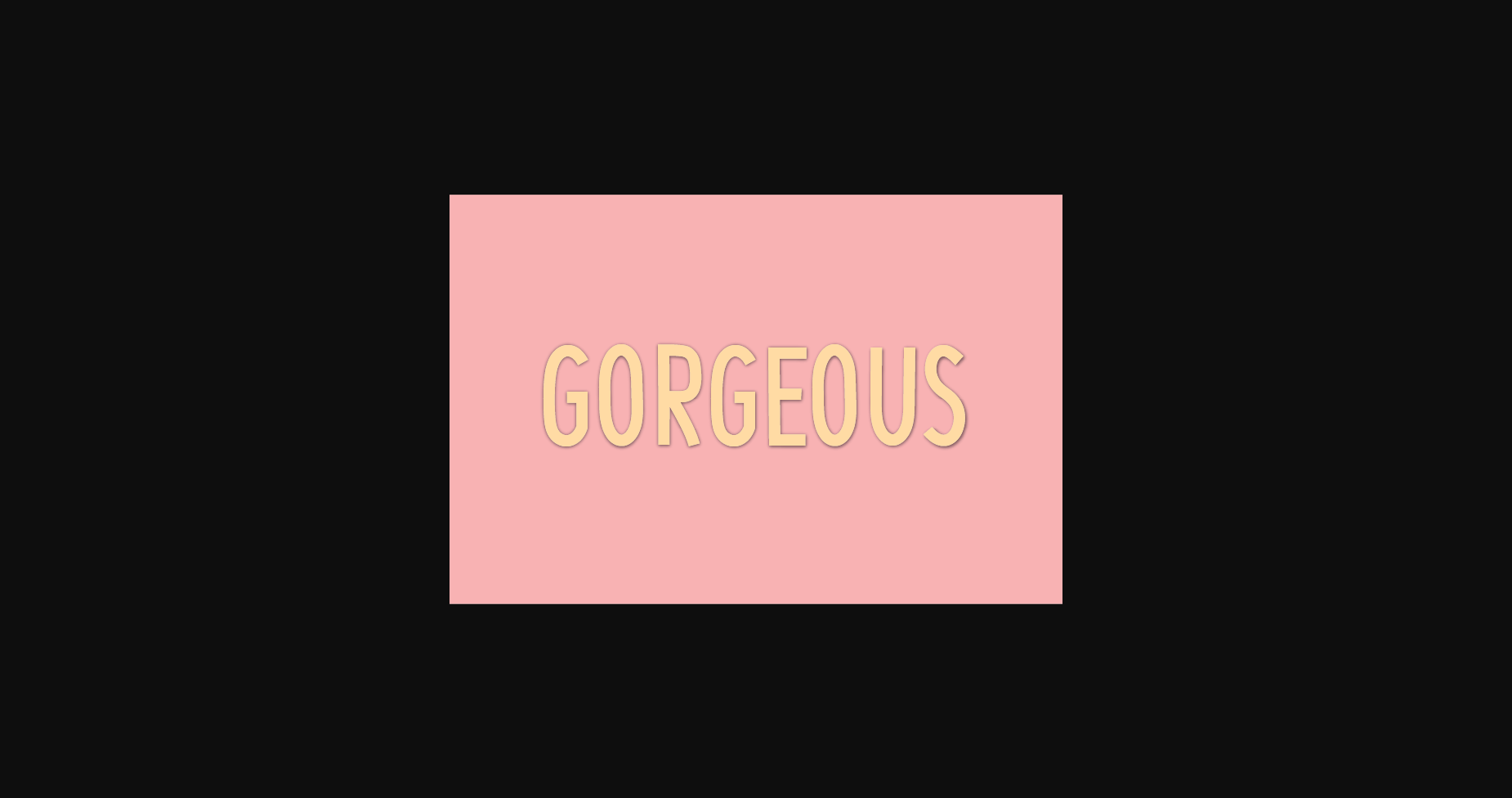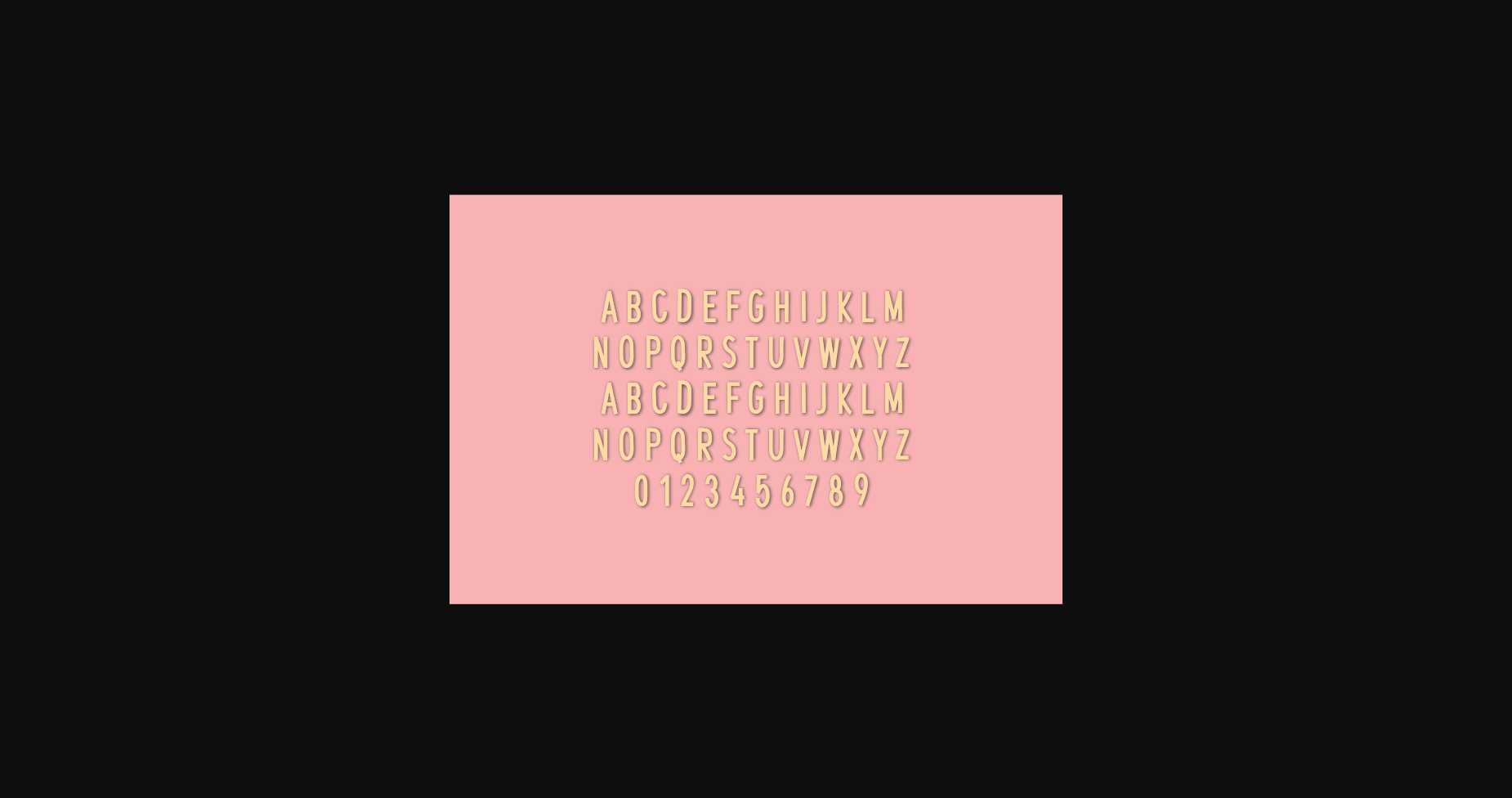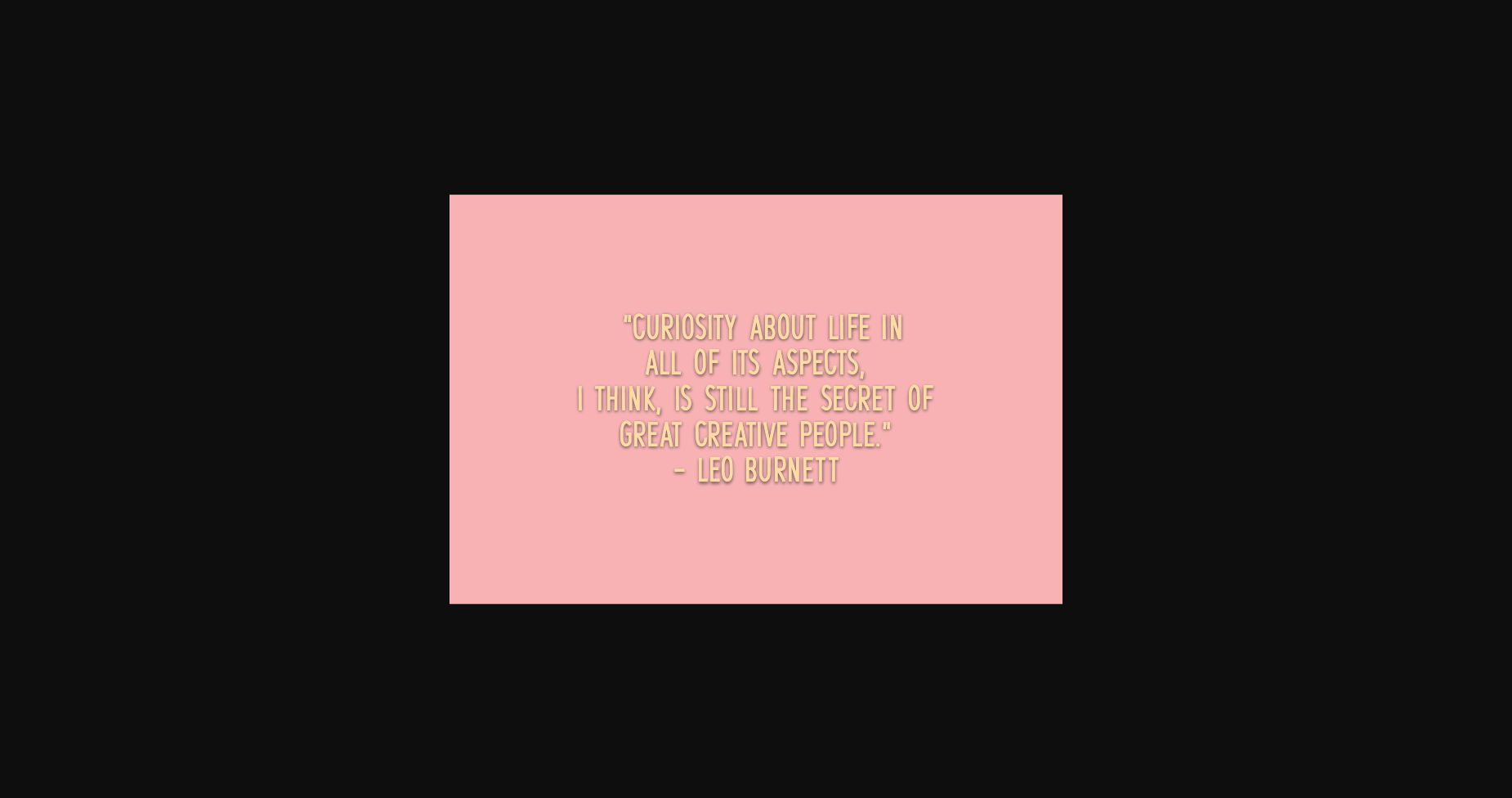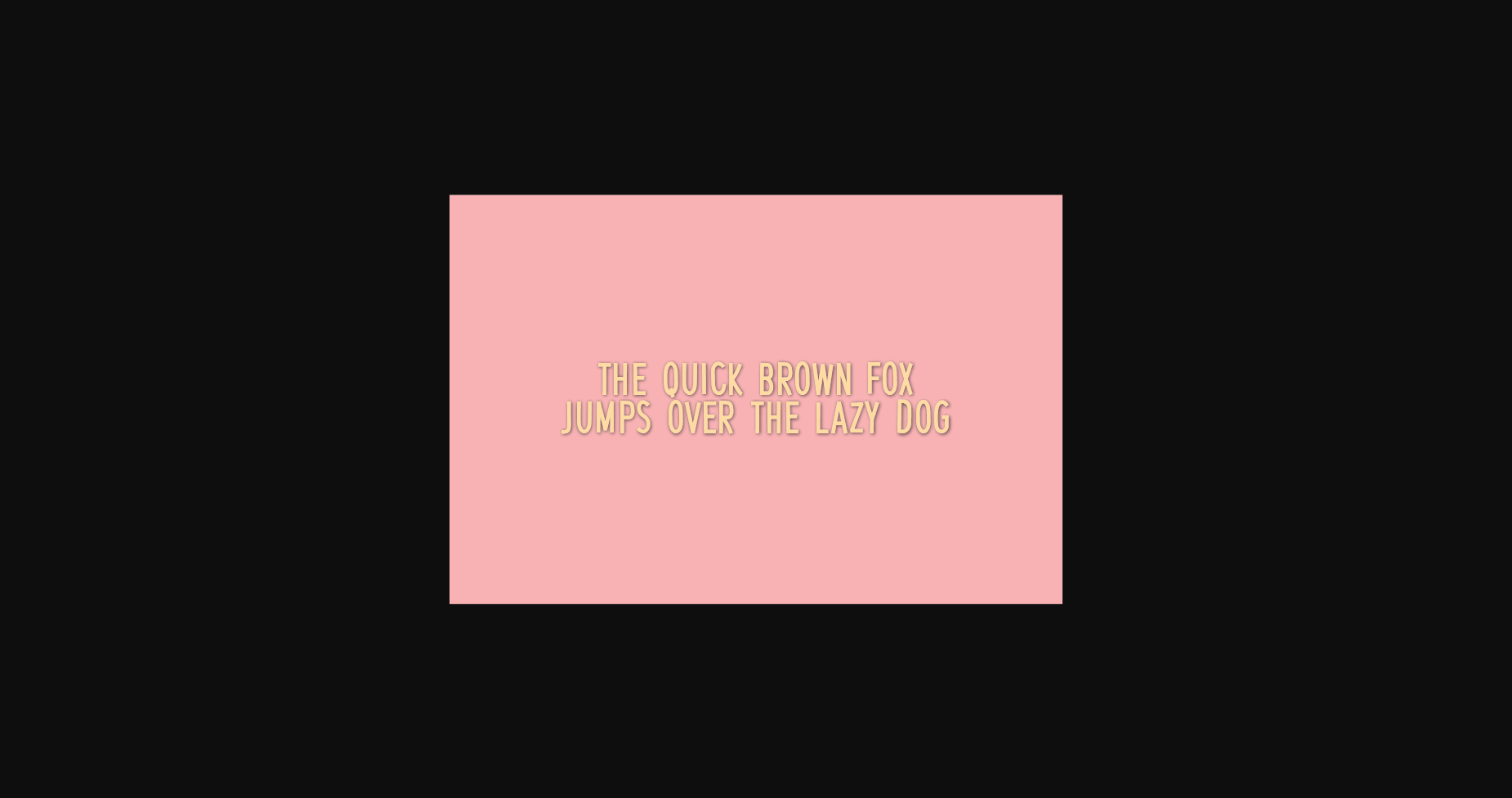
HomeSans Serif FontsGorgeous Font Sans Serif Fonts Gorgeous Font FacebookXPinterestWhatsApp 1 of 6 ... Gorgeous Font Poster 2... Gorgeous Font Poster 3... Gorgeous Font Poster 4... Gorgeous Font Poster 5... Gorgeous Font Poster 6... About Gorgeous Font Gorgeous is an interesting and unique sans serif font perfect for quotes, notes, T-shirts, and many more. Add it to your font collection, and it will make your creative projects outstanding! DOWNLOAD NOW People also explored Groningen Font Globetrotter Font Adeline Font The Sorcoter Signature Font Golding Signature Font Floratropica Font Spring Baby Font Story Tempo Font Gumbo 341 0 TagsGorgeous Font Previous articleMysterious FontNext articleBeloved House Font LEAVE A REPLY Cancel reply Comment: Please enter your comment! Name:* Please enter your name here Email:* You have entered an incorrect email address! Please enter your email address here Website: Save my name, email, and website in this browser for the next time I comment. Personal Use Free Bakk Trieng Personal Use Free Read more about this font Euphorigenic Personal Use Free Read more about this font Pumpkin Type Halloween Font Personal Use Free Read more about this font Anggraini Personal Use Free Read more about this font BLOG Free Fonts Risk: Why Free Fonts Can Be Dangerous for Designers Free Fonts Risk: Why Free Fonts Can Be Dangerous for Designers Using free fonts is a common practice in web and graphic design. However, the... Transform Your Website: Elevate Your Typography with 7 Best Web Font Generators How to Install and Use Fonts on Windows, macOS, and Web Projects Modern Sans-Serif Fonts That Brands Love in 2025